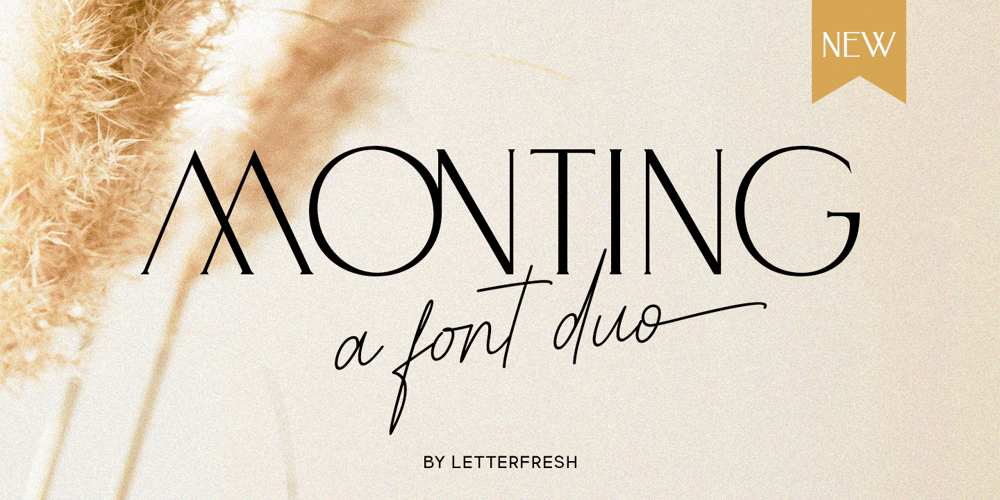
Monting Serif Font Family was designed by Rizki Andika and published by Letterfreshstudio. Monting Serif contains 2 styles and family package options. Monting Serif is a luxury font Duo. which comes with a combination of modern and elegant fonts, namely serif and signature style. You can combine it to make beautiful typography. This hand display style makes it perfect for use in all your design projects be it logos, labels, packaging designs, blog titles, posters, wedding designs, social media posts, Instagram designs, card invitations, art quotes, home decor, book / cover titles , etc.